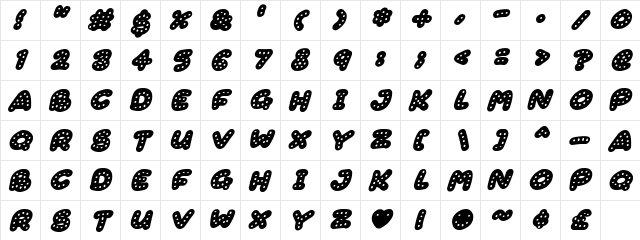
Gingerbread Italic
Design Context for Gingerbread Typeface
Gingerbread is a composed and adaptable typeface that performs quietly and consistently across a wide range of design contexts. The dynamic lean of this cut emphasises speed and emphasis in any layout.
Pro Tip: Try Gingerbread for annotation and caption copy alongside an upright companion — the contrast in angle creates a dynamic but ordered typographic system.